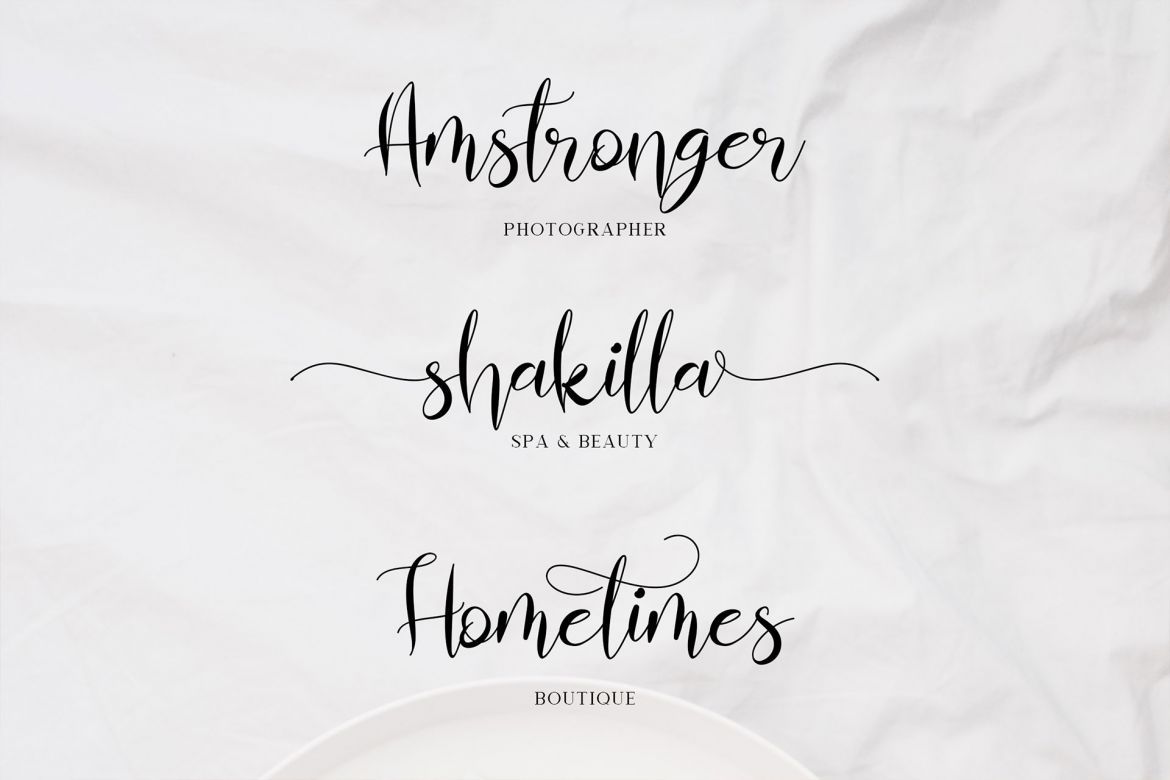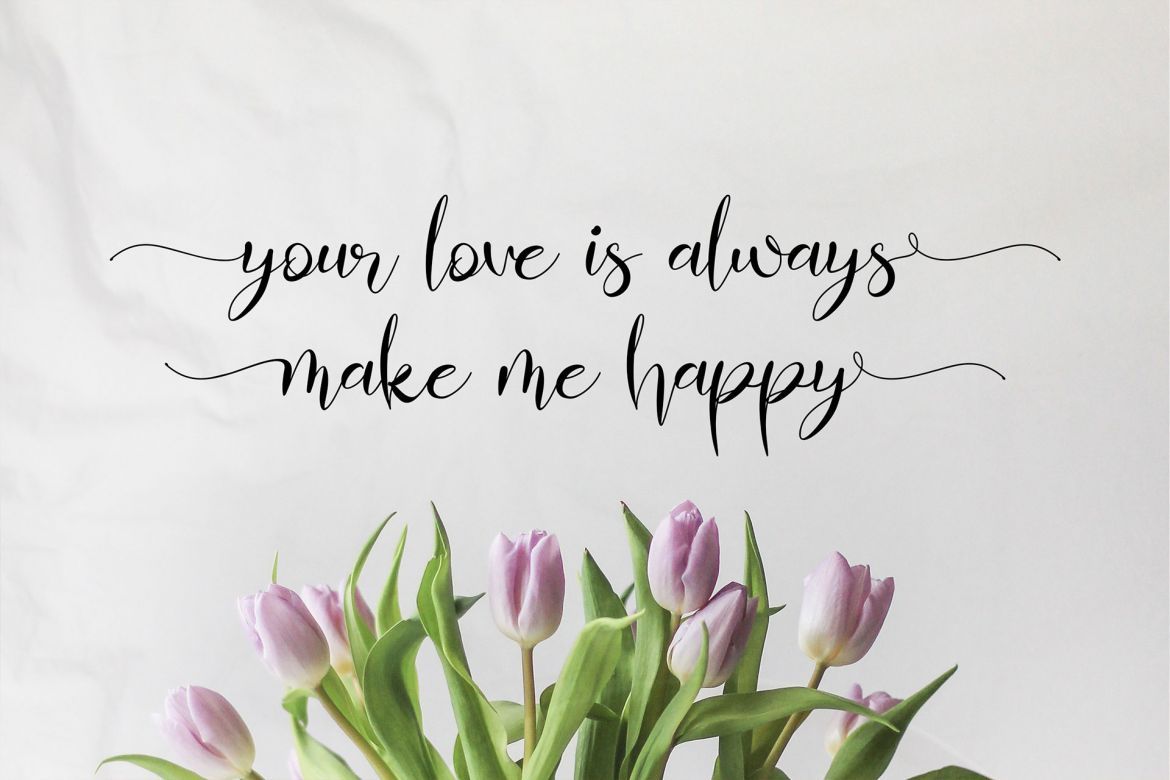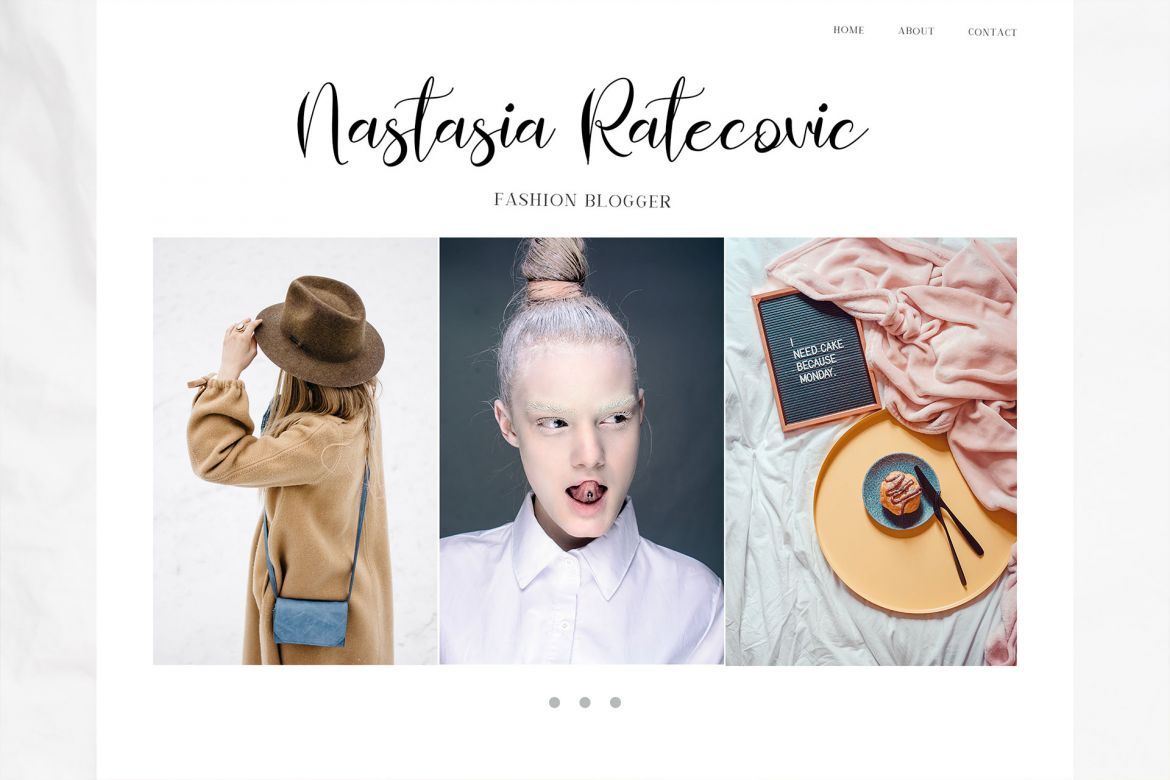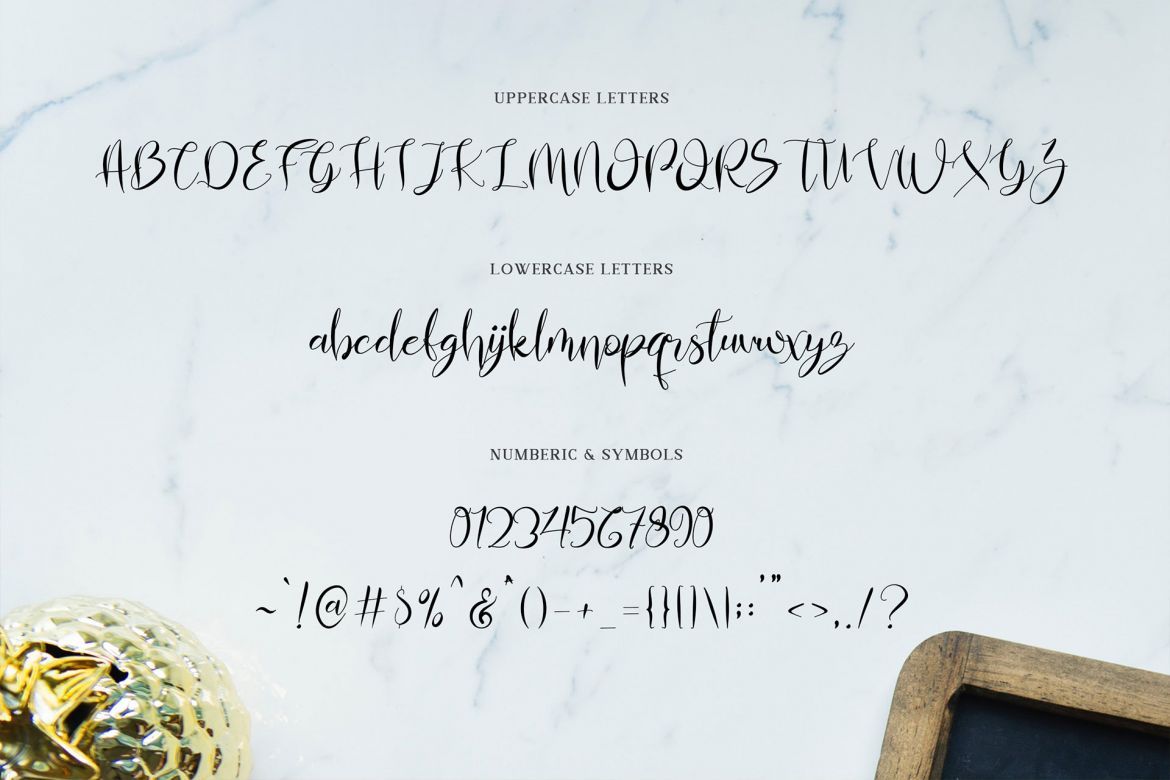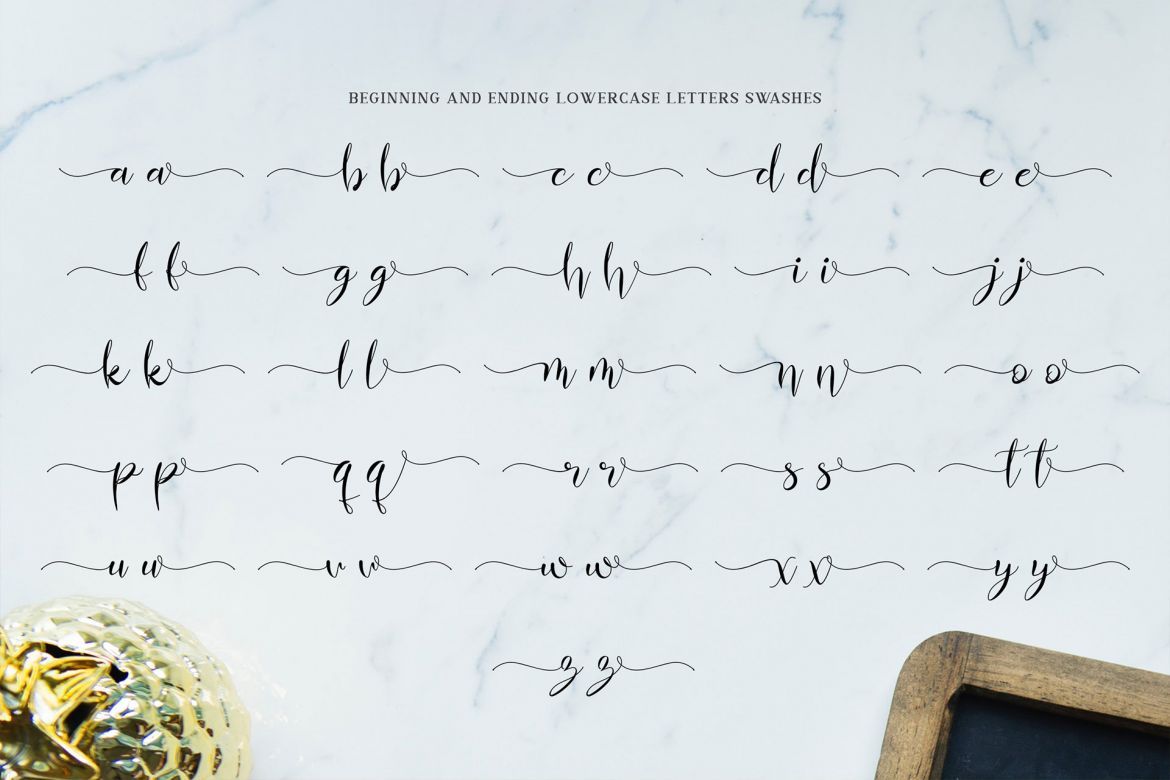
Almahira - Script Font
Introducing – Almahira – Script Font is a beautiful and modern handwritten font script. This elegant and beautiful font is stylish and versatile so you can use in a plethora of designs in both digital and print applications.
Almahira is a modern calligraphy typeface, beautiful and luxurious, this font looks elegant, classy, readable, stylish, catchy and easy to use.
Almahira is the best choice for your professional design projects, including signature, watermark on photography, quotes, wedding, fashion, letter, invitation, business card, logo, branding, magazines, social media, advertisements, product designs, and much other design projects.
• the perfect font choice for powerful projects – watermarks, signatures, photography, logos, business cards, quotes, album covers.